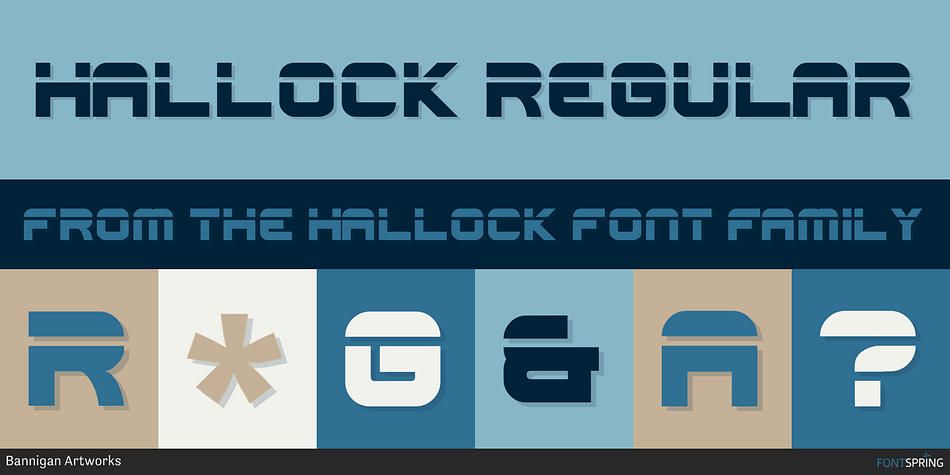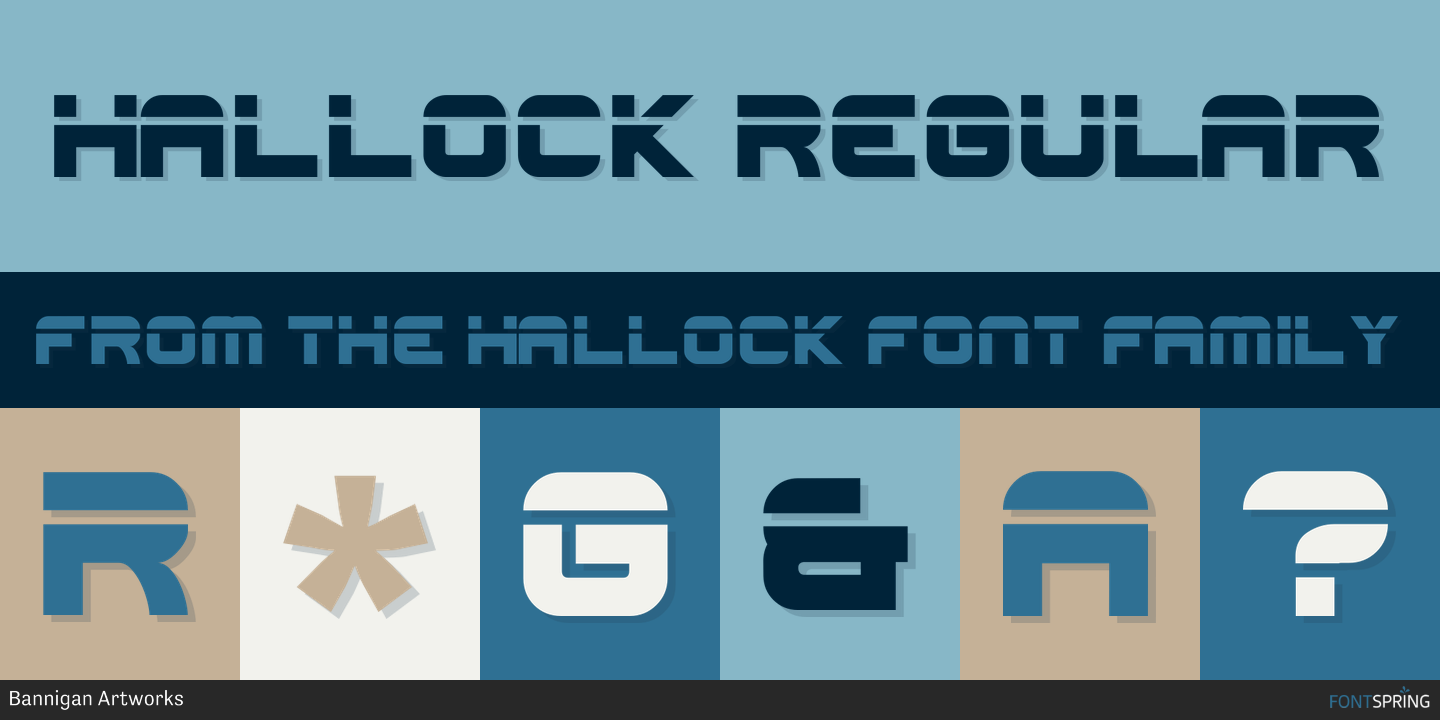
HALLOCK REGULAR
Hallock is a display sans font family. This typeface has four styles and was published by Bannigan Artworks.
This clean sans serif font was created to assist designers in creating logos. Its heavy, bold, block design helps grab attention, while the line through the top half creates movement.